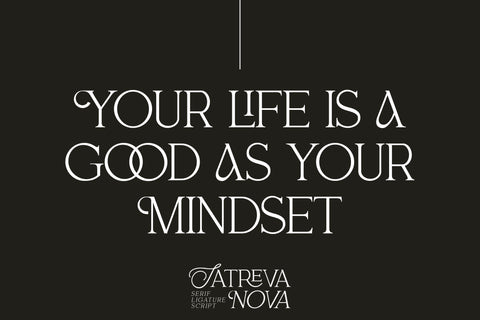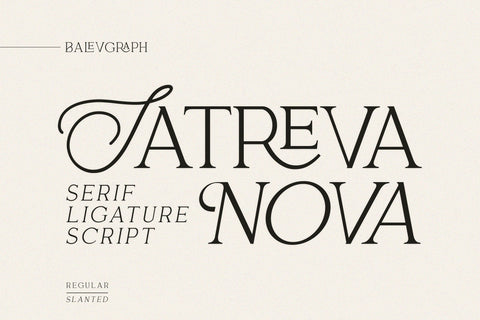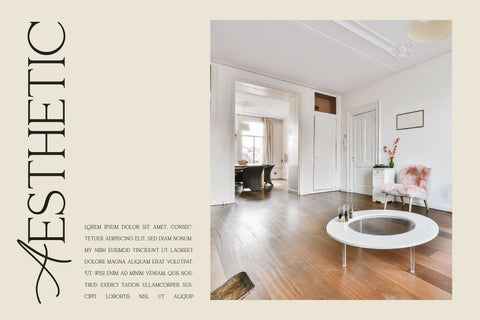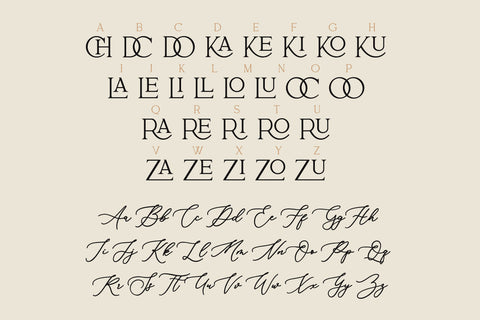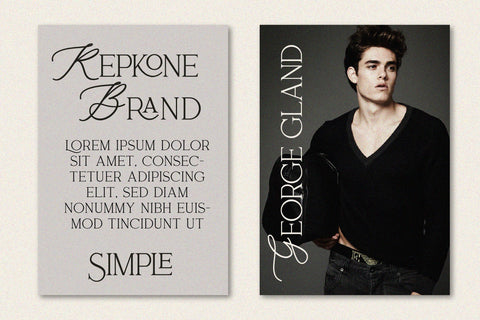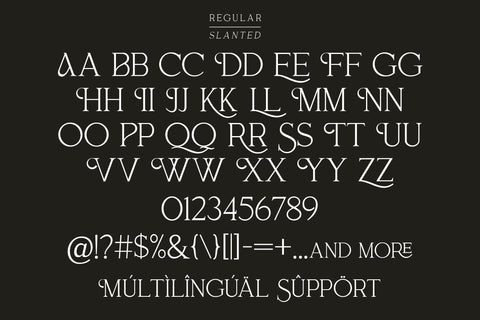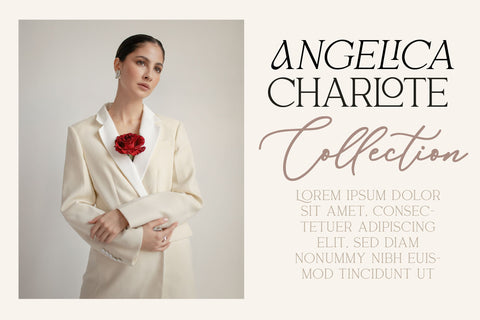
Satreva Nova - A Charming Font Duo
Satreva Nova is a sophisticated, charming font duo (serif and script) with a fashionable touch. Specially designed for luxury, elegant, feminine projects, this font is perfectly suitable for creating modern, chic designs.
- Numbers & Punctuation
- Ligature & Alternate